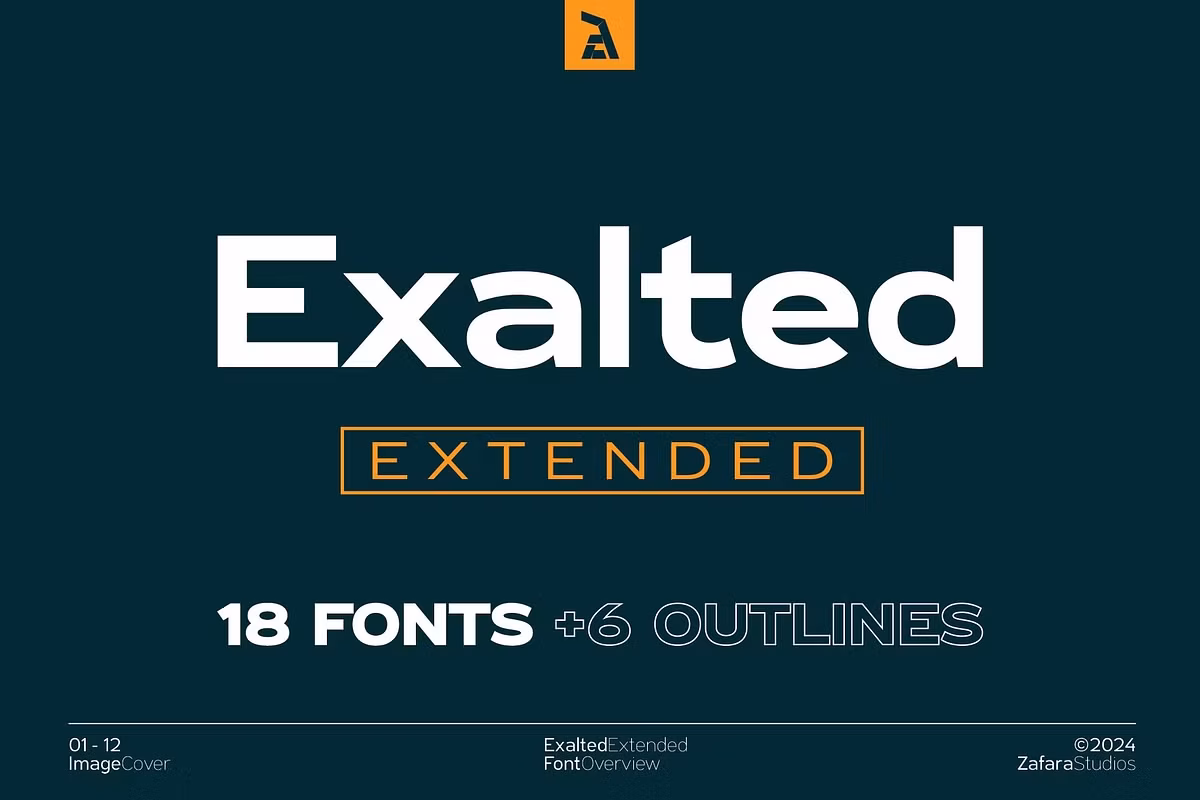
Exalted Extended Font Free Download is a sleek and commanding typeface designed to make a bold visual impact with its wide letterforms and modern edge. Please note: you must purchase this font for commercial use, but you can test it through a free download. Perfect for branding, tech-inspired graphics, sports posters, headlines, and futuristic design projects, Exalted Extended delivers power, precision, and presence.
Its extended structure gives every word extra weight and attention, making your designs stand out in both digital and print formats. Whether you're crafting a high-impact logo or an edgy layout, Exalted Extended Font Free Download offers clean geometry and professional flair. Fully compatible with Adobe Illustrator, Photoshop, Canva, and more, it's easy to incorporate into any creative workflow. Download it today for personal use and amplify your typography with the bold, contemporary style of Exalted Extended.